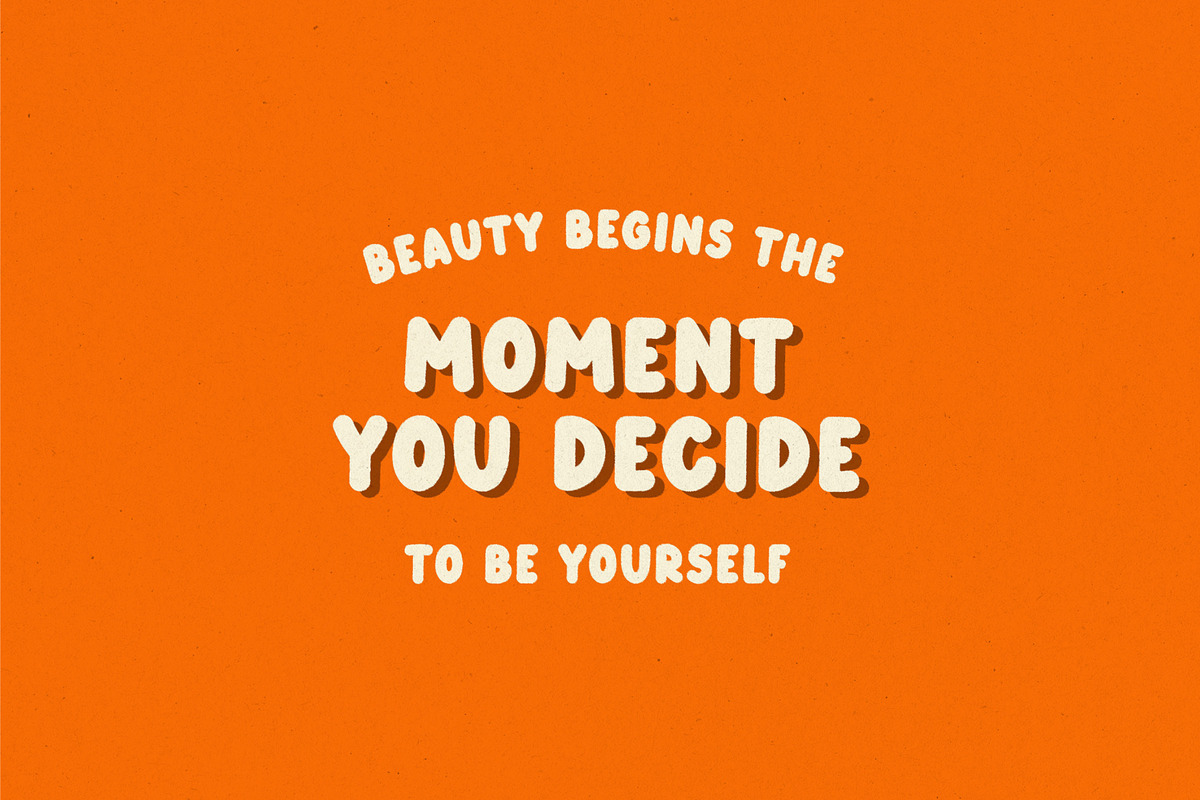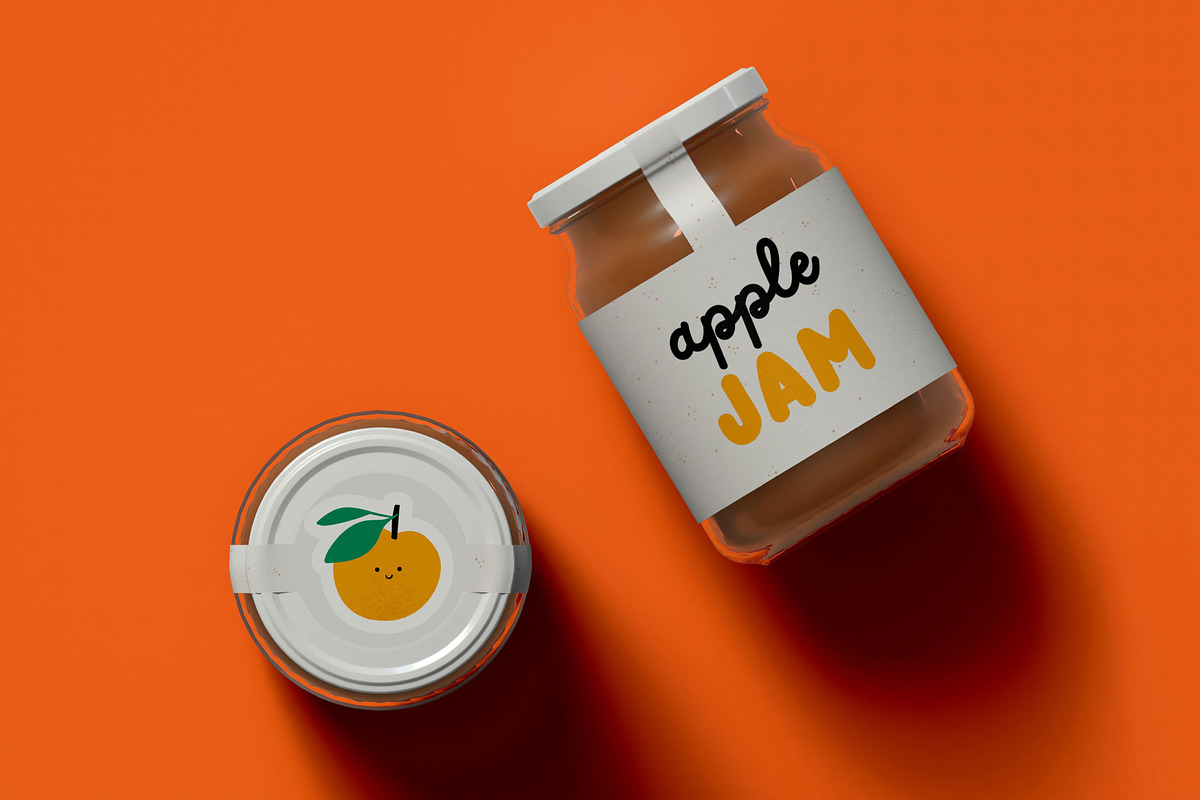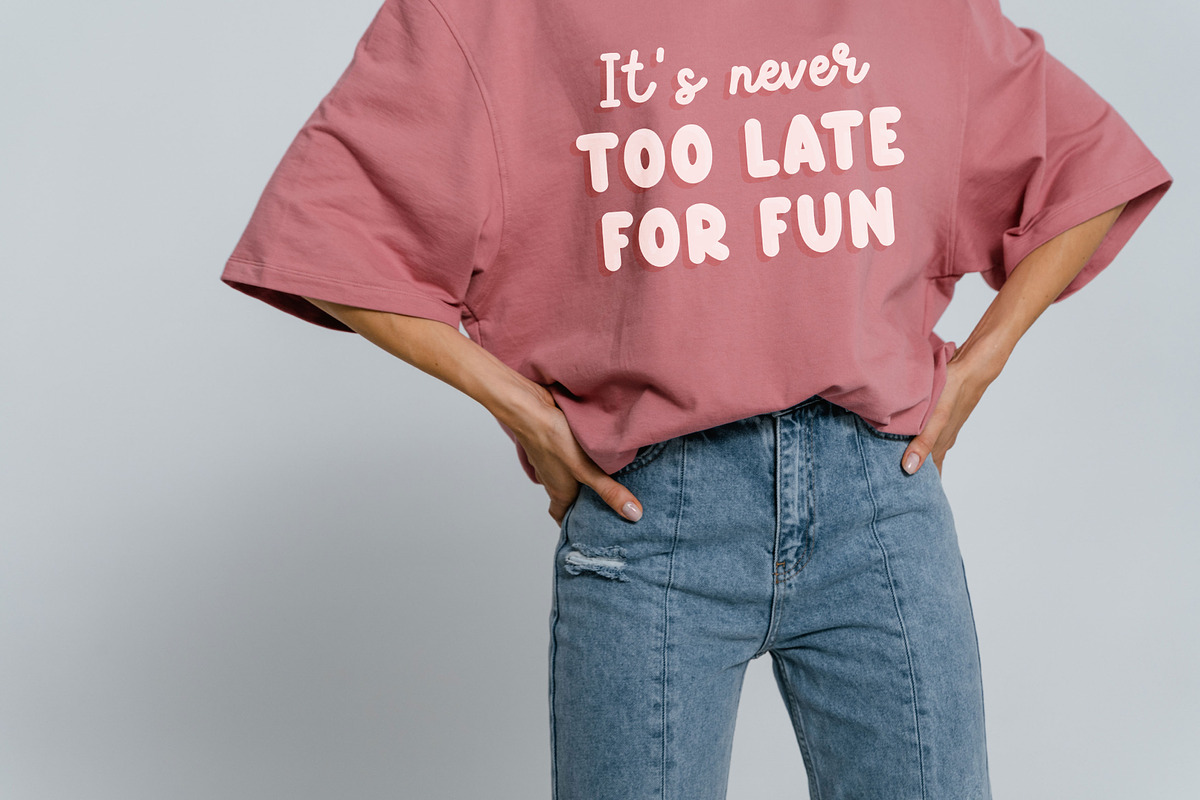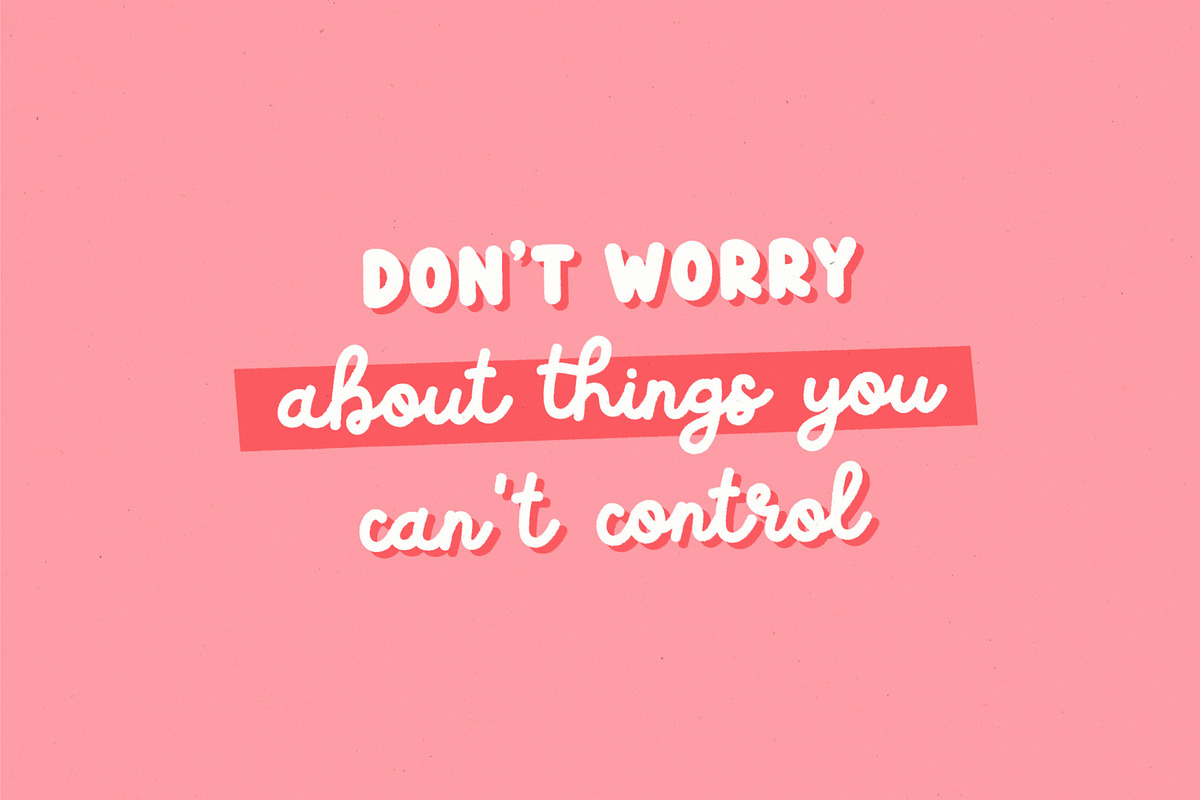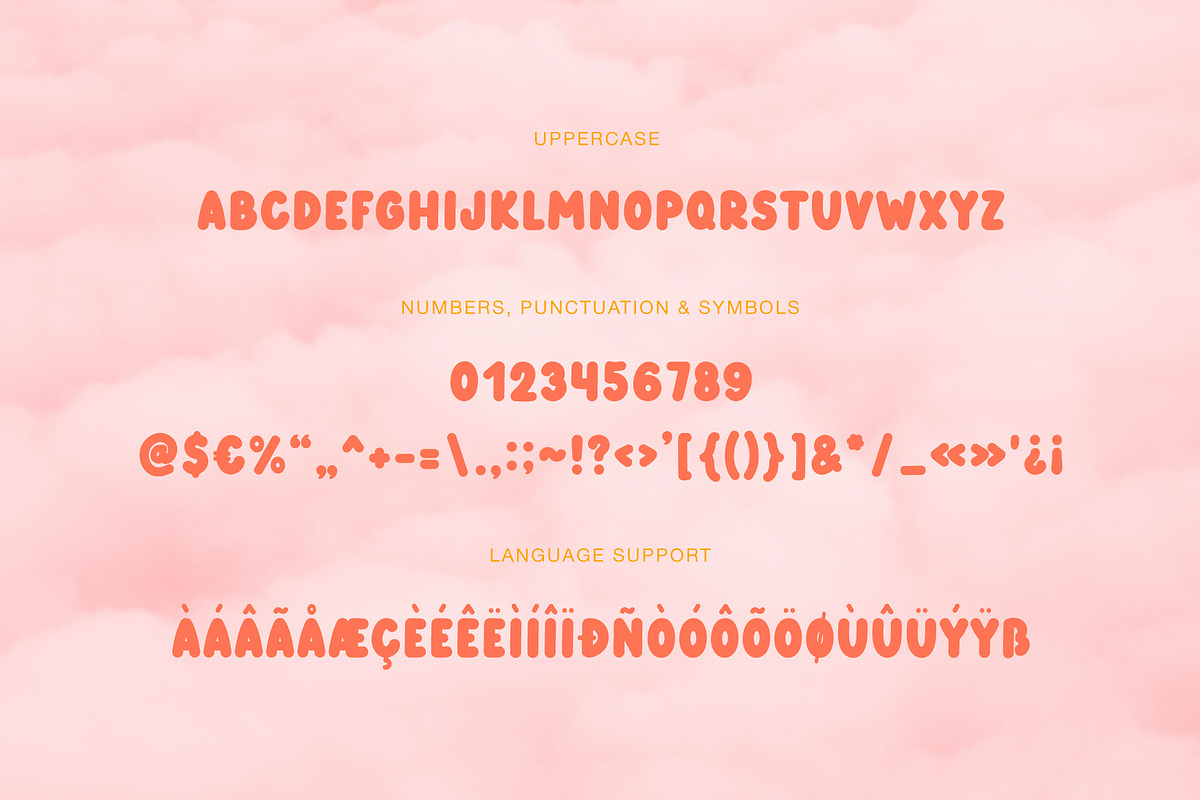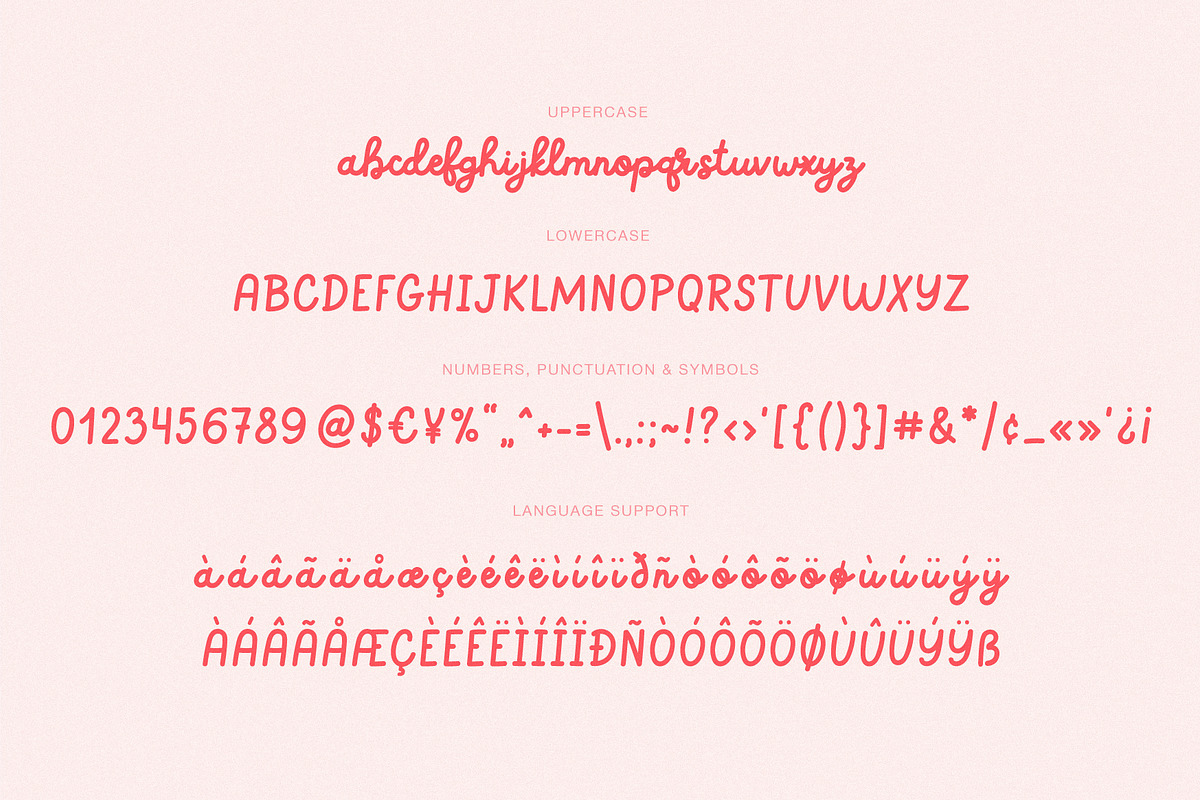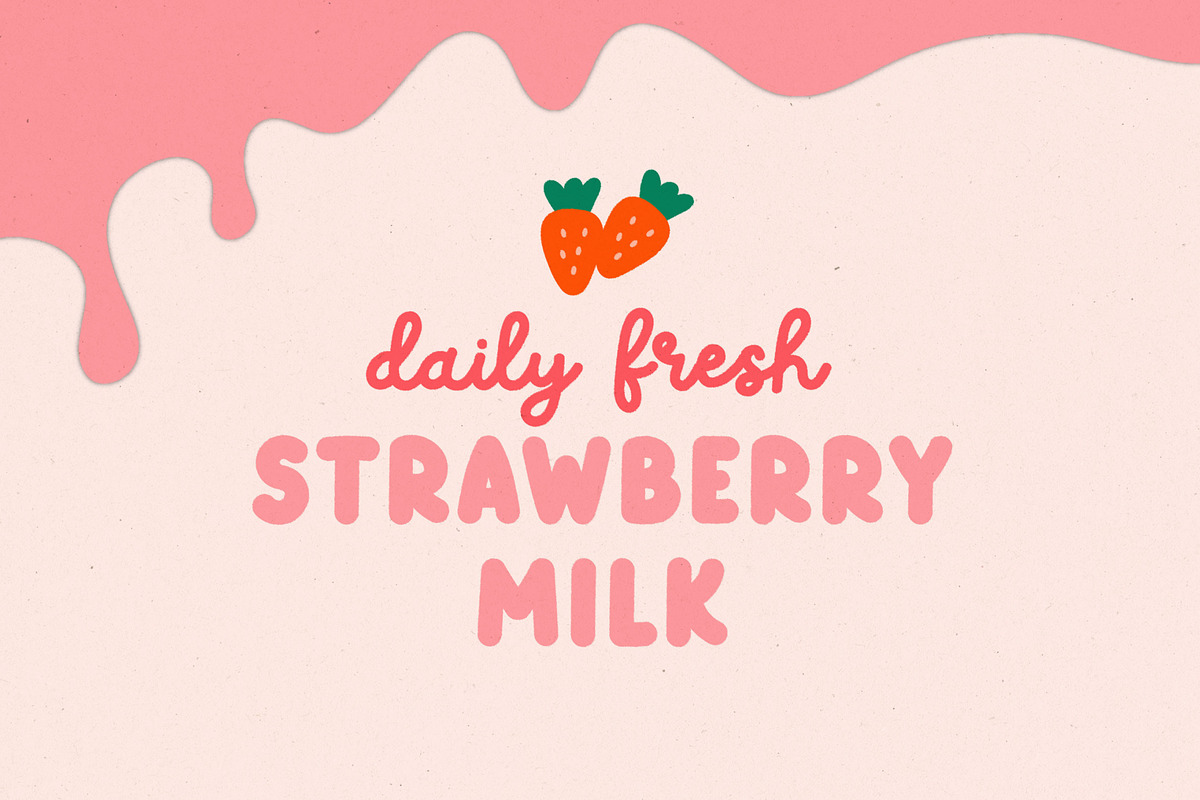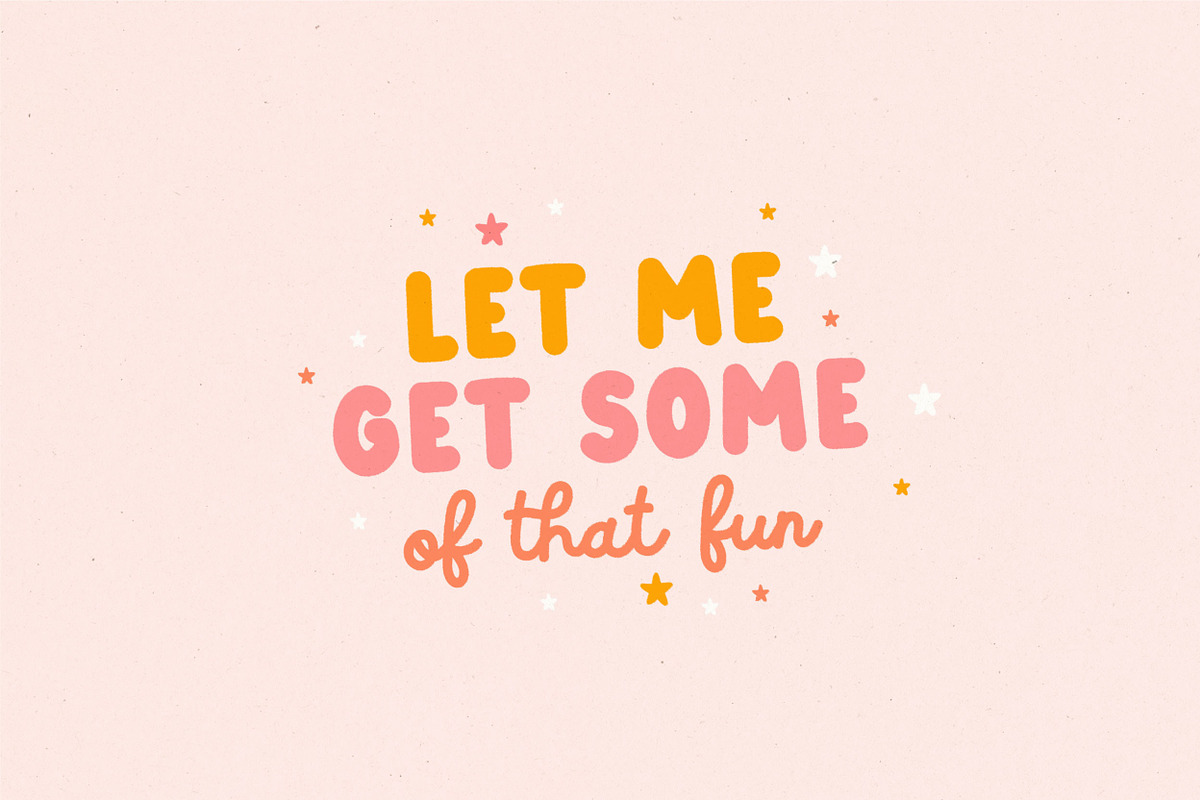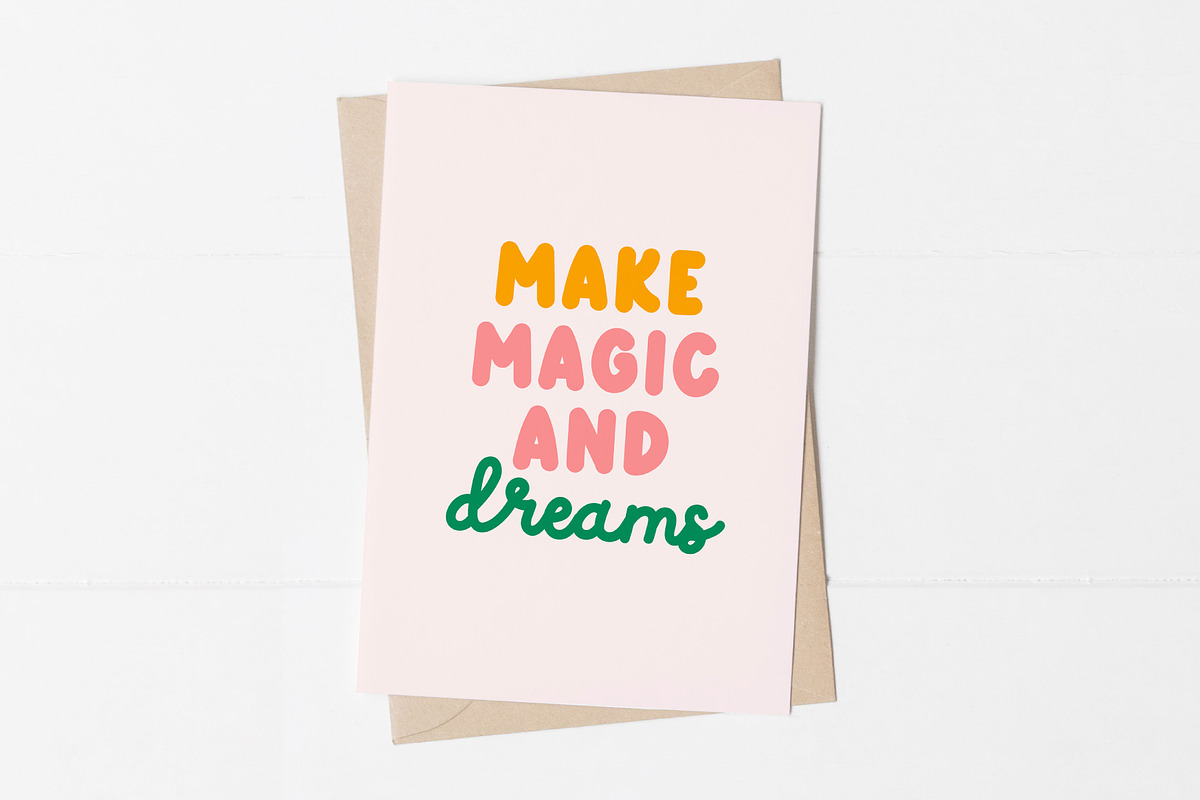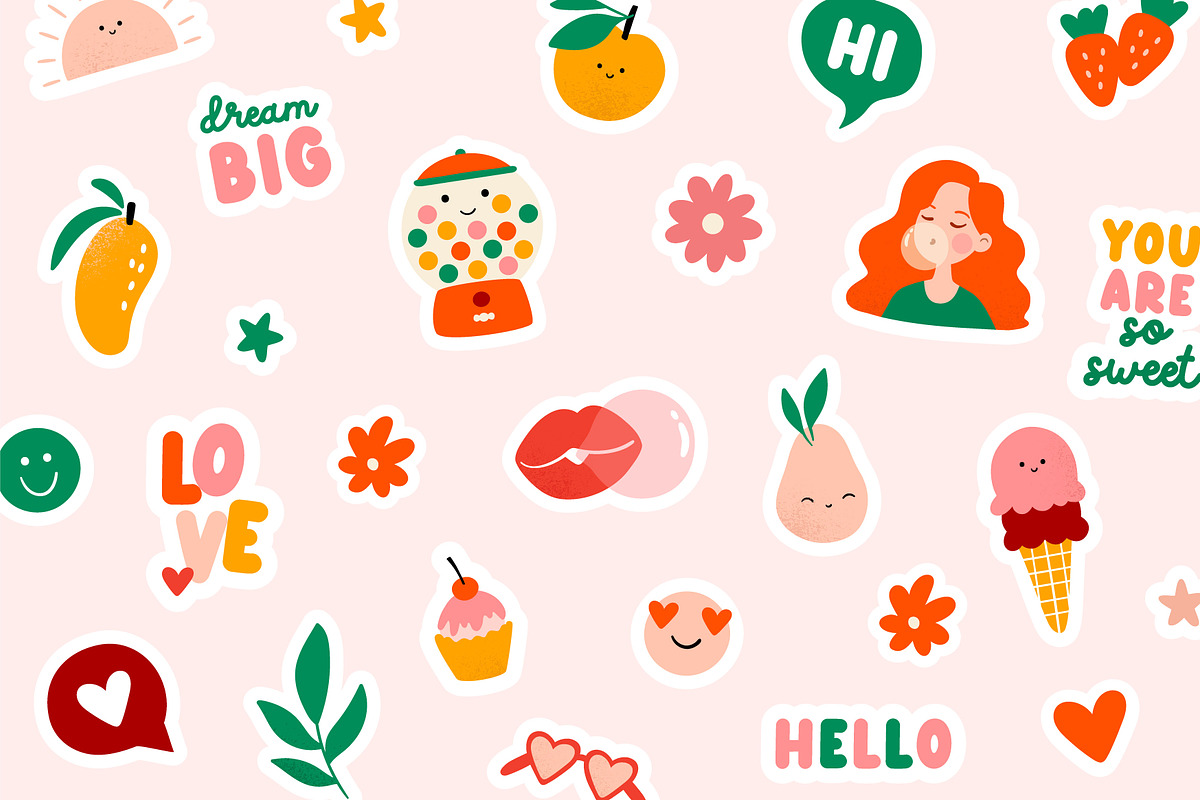
Bubblegum | Font duo
Use for logos, quotes, invitations, greeting cards, journals, posters, baby clothing and more. This font will make your design looks great and fun!